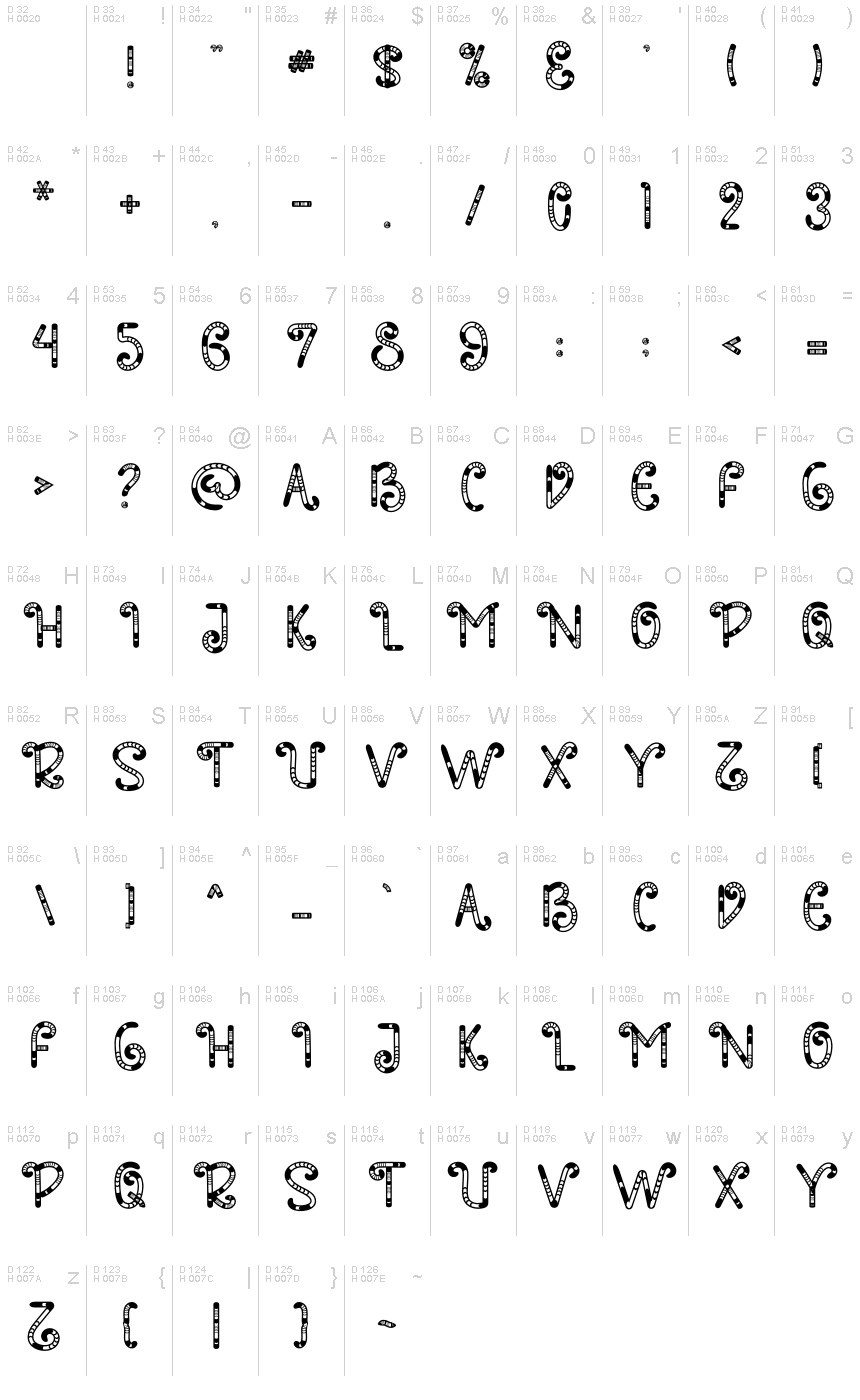
Candy Birthday
Candy Birthday, a playful masterpiece from Inermedia Studio, is a decorative display font that exudes whimsy and charm. Its semi-light weight makes it lively yet readable, crafting an inviting atmosphere for viewers. The font's hand-drawn character gives it a personal touch that is perfect for invitations, greeting cards, and themed advertising campaigns.
Candy Birthday's aesthetic appeal lies in its unique blend of casual flair with a hint of festivity. Each letter carries an individual personality, making them stand out in any creative context while ensuring cohesiveness across the typeface. This font is especially fitting for projects targeting youthful or leisurely audiences who appreciate a touch of sweetness in design.
Adopt Candy Birthday to add a sprinkle of fun to your next creative venture—it's sure to captivate and delight with its sugary style!